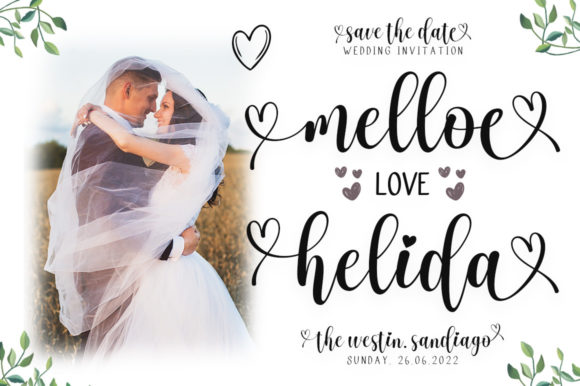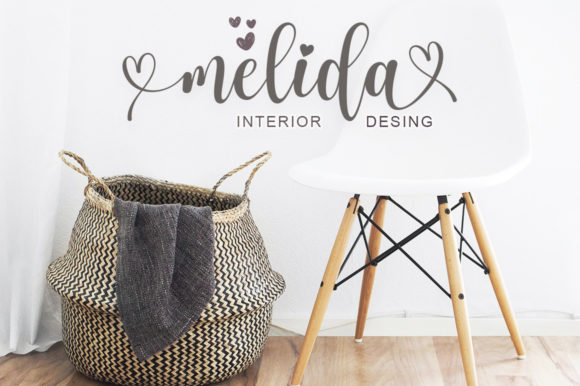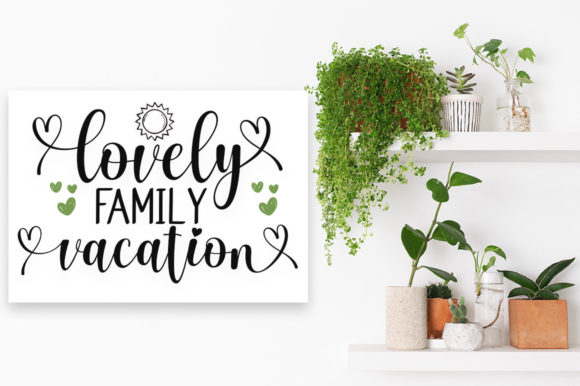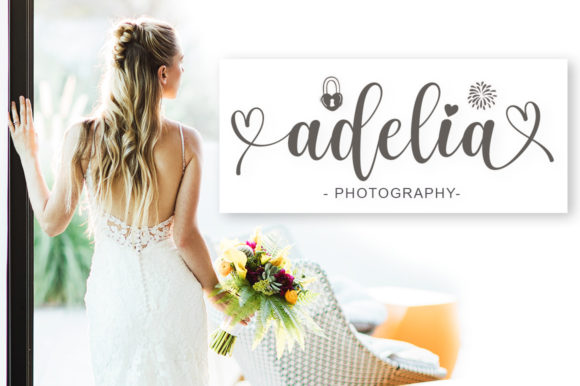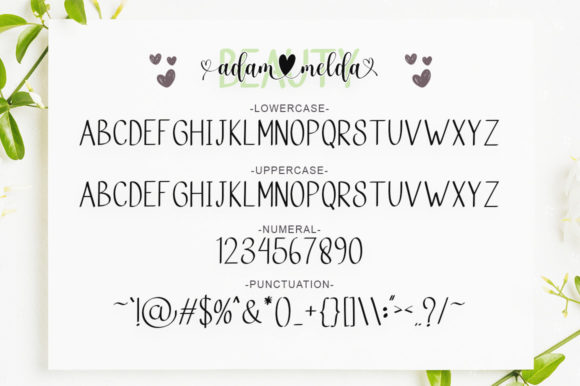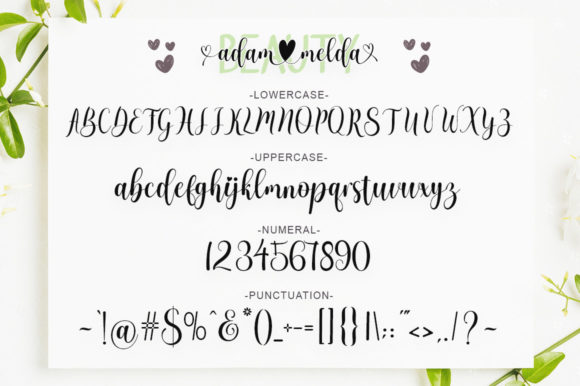
Introducing Adam Melda Lovely Font: Elevate Your Designs with Chic and Cheery Typography
Are you a designer or crafter looking for the perfect font to add a touch of elegance and playfulness to your projects? Look no further than the Adam Melda Lovely Font! This beautiful font duo is designed to complement each other perfectly, making it an ideal choice for a wide range of creative endeavors. In this article, we’ll dive into the features and benefits of the Adam Melda Lovely Font, and explore how it can elevate your designs and crafts.
A Perfect Pair: Two Fonts Designed to Complement Each Other
The Adam Melda Lovely Font consists of two fonts that are carefully crafted to work together in harmony. Whether used together or apart, these fonts are perfect for adding a chic and cheery touch to your projects. The fonts feature a unique and stylish design, with elegant lines and a playful flair that makes them perfect for a wide range of applications, from digital designs to handmade crafts.
PUA Encoded for Easy Access to Glyphs and Swashes
One of the standout features of the Adam Melda Lovely Font is its PUA (Private Use Area) encoding. This means that you can access all glyphs and swashes with ease, giving you maximum flexibility and creative control over your designs. With PUA encoding, you can easily insert special characters, ligatures, and swashes into your text, allowing you to create unique and eye-catching designs that showcase your creativity.
The Adam Melda Lovely Font is incredibly versatile, making it perfect for a wide range of design applications. Here are just a few ideas to get you started:
- Digital Designs: Use the Adam Melda Lovely Font to create stunning digital designs, from social media graphics to blog headers and more.
- Handmade Crafts: Add a touch of elegance and whimsy to your handmade crafts, such as scrapbooking, card making, and journaling.
- Branding and Packaging: Use the font to create eye-catching branding and packaging designs that showcase your brand’s personality.
- Stationery and Invitations: Create beautiful stationery and invitations that feature the Adam Melda Lovely Font’s elegant and playful design.
Why Choose the Adam Melda Lovely Font?
So why choose the Adam Melda Lovely Font for your design projects? Here are just a few reasons:
- Unique and Stylish Design: The Adam Melda Lovely Font features a unique and stylish design that’s sure to make your projects stand out.
- Highly Versatile: The font is incredibly versatile, making it perfect for a wide range of design applications.
- Easy to Use: The font is PUA encoded, making it easy to access all glyphs and swashes.
| Font Name | Adam Melda Lovely Font |
In conclusion, the Adam Melda Lovely Font is a beautiful and versatile font duo that’s perfect for designers and crafters looking to add a touch of elegance and playfulness to their projects. With its PUA encoding and highly stylized design, this font is sure to become a favorite in your design arsenal. So why wait? Download the Adam Melda Lovely Font today and start creating stunning designs that showcase your creativity!